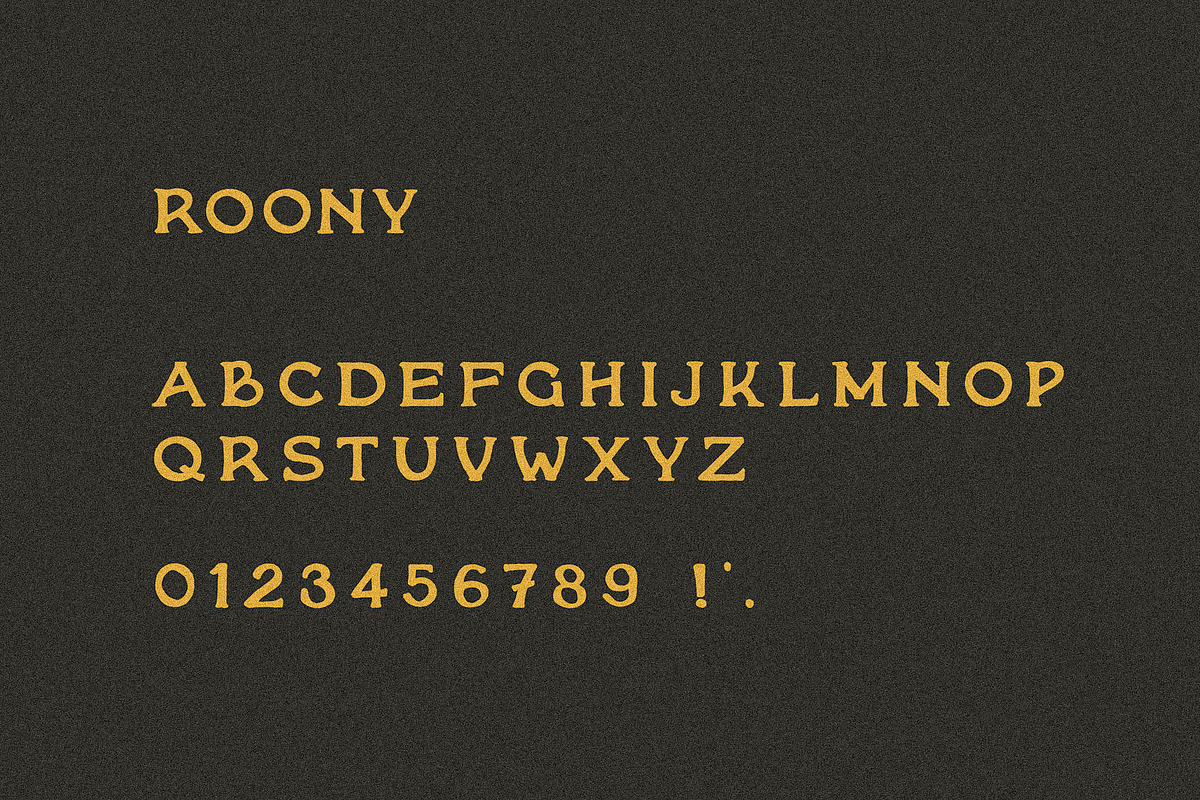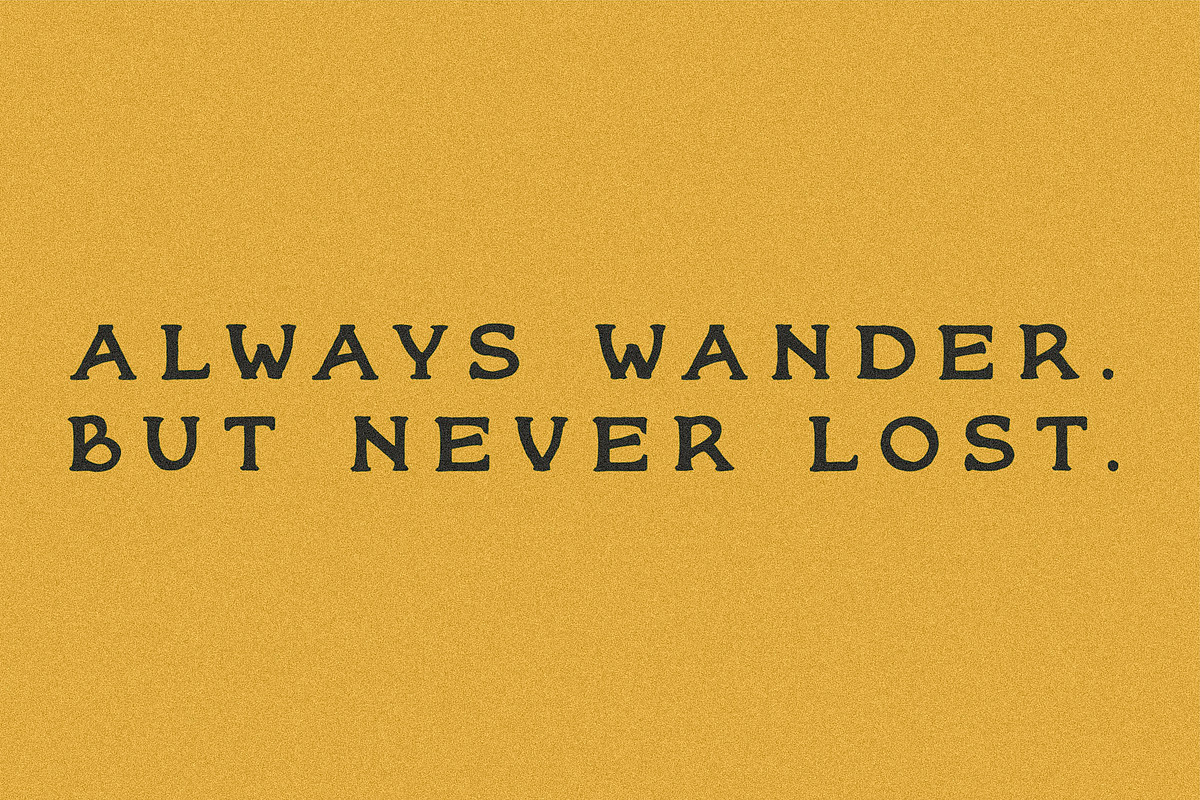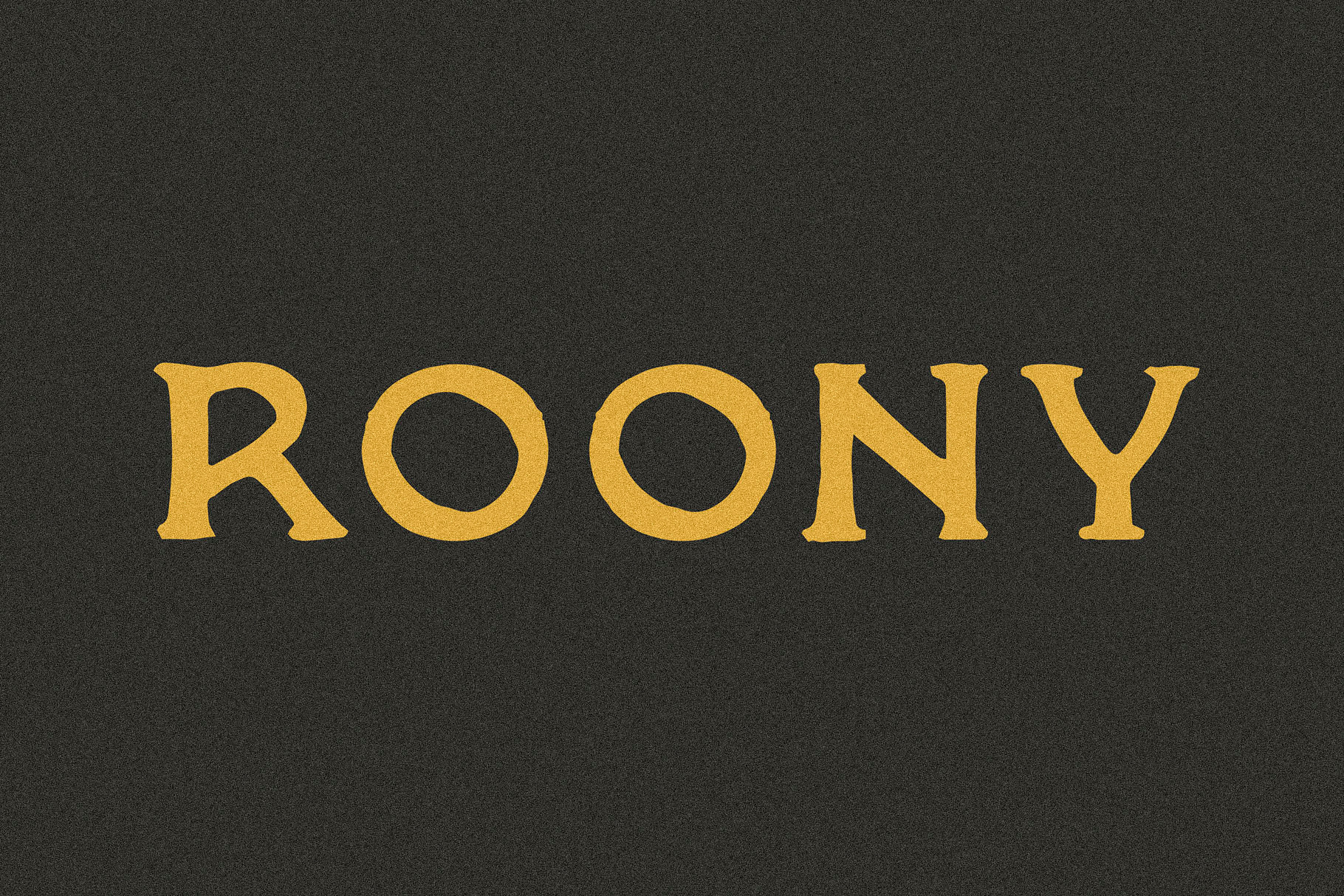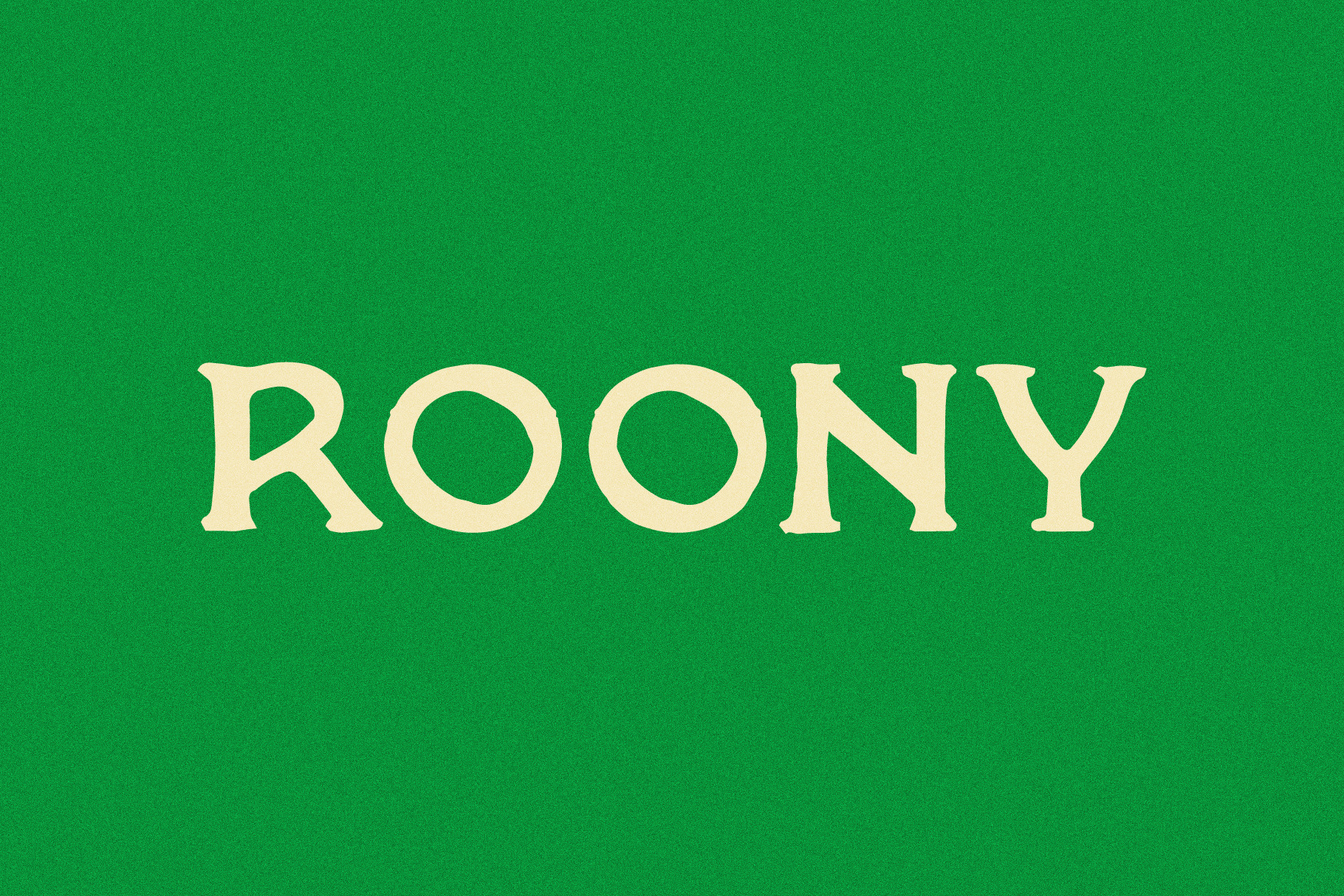
Roony I A Handmade Serif Font
Ethically Sourced, Allegedly
Roony is a free-range, ethically sourced font with no additives, preservatives, or weird aftertaste. Just honest, hand-drawn letters that pair well with anything.
Basic Latin support with a limited set of accented characters.